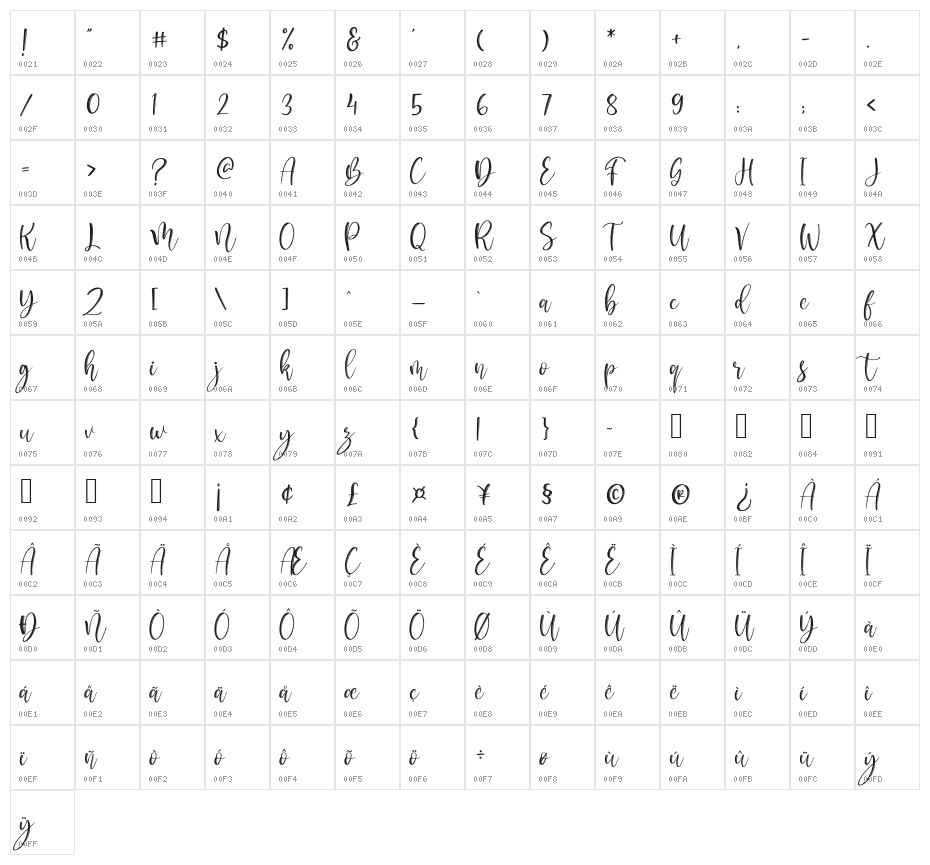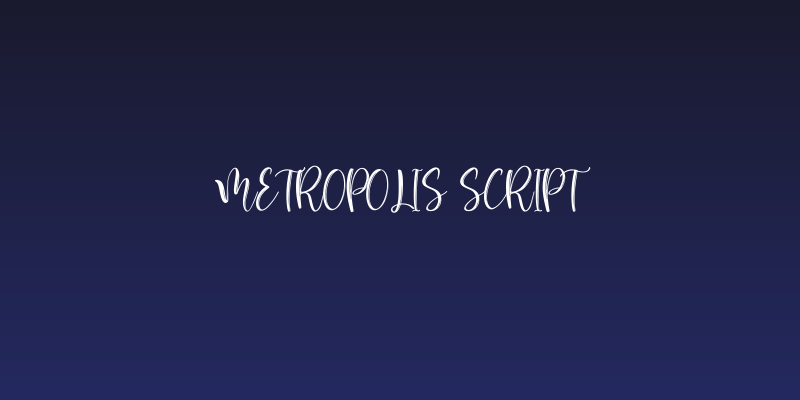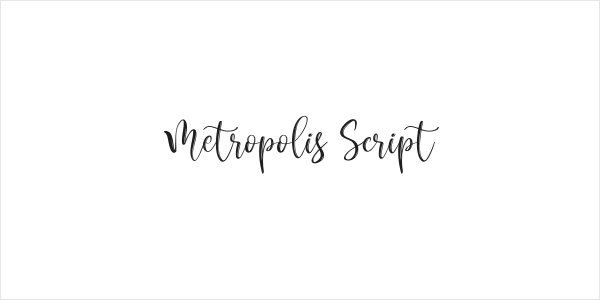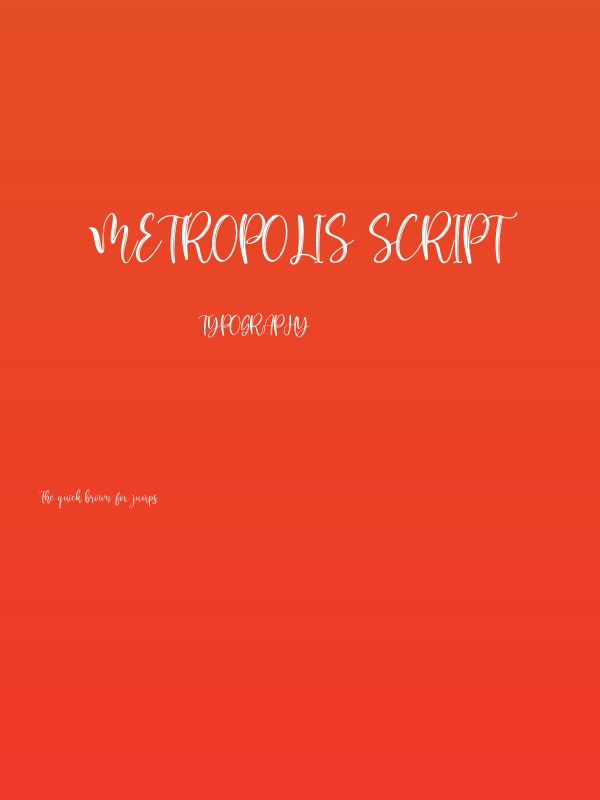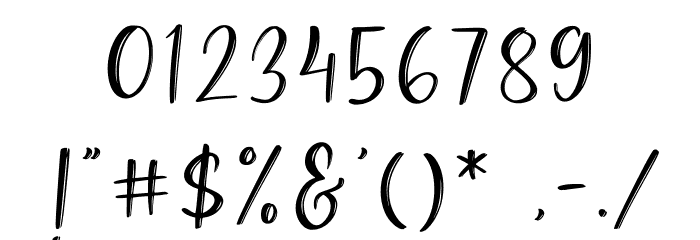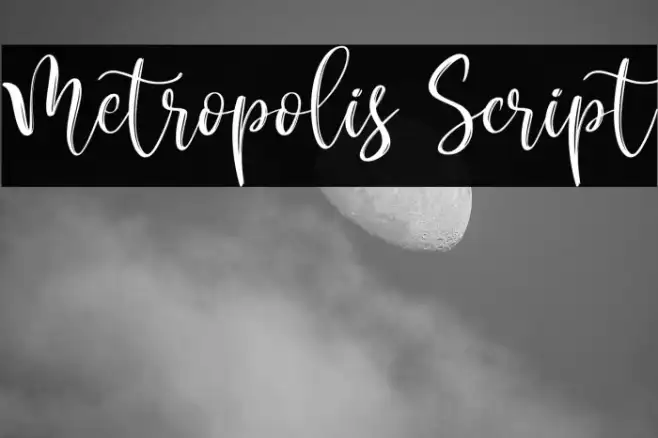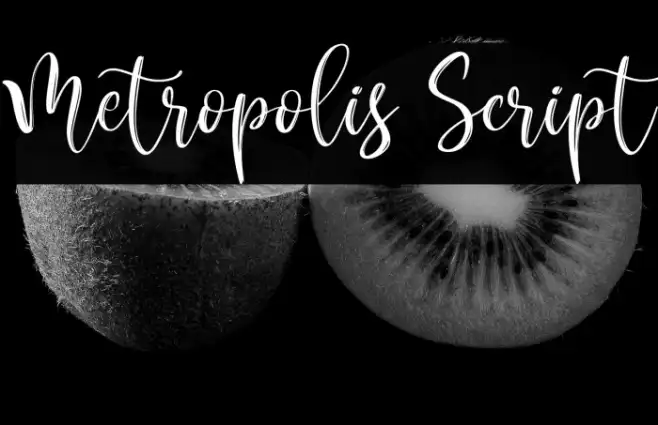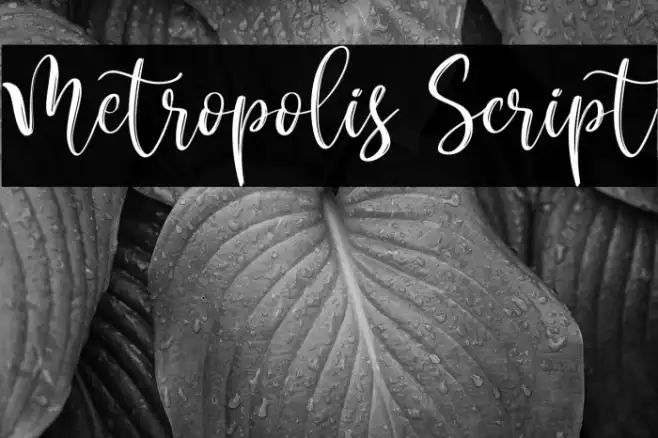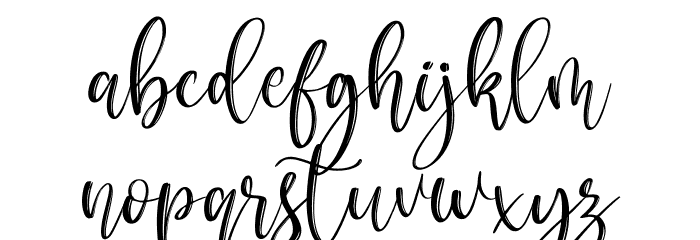
Metropolis Script Font
Metropolis Script Description
This font exudes a lively and elegant script style, characterized by its fluid, cursive strokes and a sense of movement. The uppercase letters are bold and sweeping, with a distinct flair that adds a touch of sophistication. The lowercase letters maintain a consistent flow, enhancing readability while preserving the artistic essence. Numbers and special characters are crafted with the same attention to detail, ensuring a cohesive look across all elements. The overall design is both modern and timeless, making it suitable for a variety of creative applications.